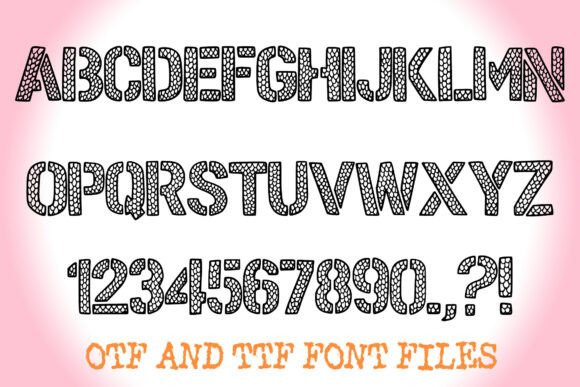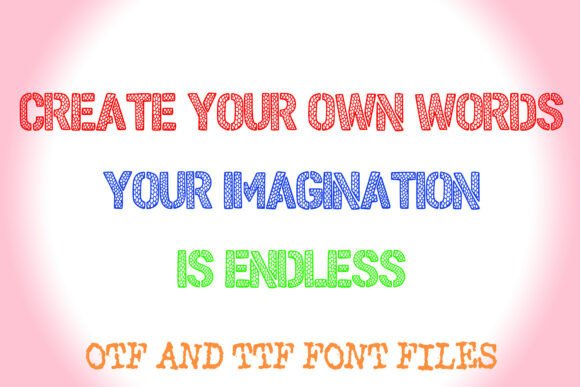
Introduction to Dragon Scales Army Font
Imagine you’re brainstorming a new game title or fantasy book cover, and you want to evoke the sense of epic adventure and mythical power. You’ve got a great story, engaging characters, and a thrilling plot, but something’s missing – that certain je ne sais quoi that sets your project apart from the rest. That’s where Dragon Scales Army Font comes in, a game-changing typeface that brings together the rugged authority of army stencils and the ancient, protective texture of dragon scales.
Designed to unleash the might of mythical beasts and military precision, Dragon Scales Army Font is more than just a font – it’s a statement of fierce power and strategic fantasy. Its unique texture, with intricate, interlocking scale patterns, evokes the formidable hide of a dragon, creating a fascinating blend of strength, fantasy, and tactical readiness.
Key Features of Dragon Scales Army Font
- Unique, high-quality design for creative projects and presentations.
- Perfect for designers and artists working on projects that require a bold, eye-catching font, such as fantasy and sci-fi designs.
Honest Review: Dragon Scales Army Font
As a designer, I’m always on the lookout for unique and high-quality design resources to elevate my creative projects. Recently, I had the chance to work with the Dragon Scales Army Font, and I’m excited to share my honest review.
Here are some of the key features that impressed me:
- High-quality design with intricate details
- Wide range of applications, from branding to editorial design
Overall, I’m really impressed with the Dragon Scales Army Font. Its unique design and high-quality production make it a valuable addition to any designer’s toolkit. With its transparent background and free download, it’s a great resource for any creative project.
Designing with Dragon Scales Army Font
Getting the Most Out of Dragon Scales Army Font
To get the most out of the Dragon Scales Army Font, use it in combination with other design elements, such as bold colors and textures, to create a visually appealing design. You can also experiment with different font sizes and styles to add depth and interest to your project.
The Dragon Scales Army Font is ideal for a variety of creative projects, including logos, posters, social media graphics, and presentations. Its unique design makes it perfect for use in gaming, fantasy, and sci-fi themed projects.